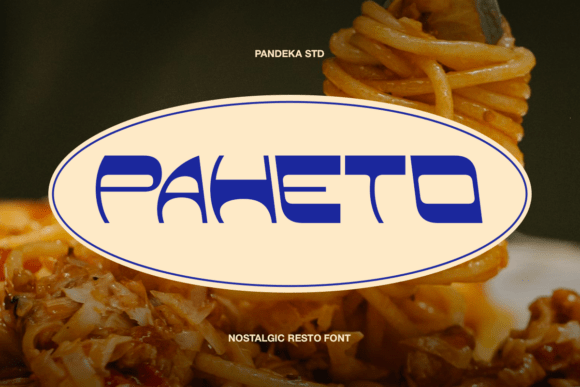
Paheto Font for Editorial Design
Paheto is a nostalgic restaurant display font inspired by classic Italian eateries, vintage menus, and retro food packaging. With its bold geometric shapes, rounded corners, and slightly futuristic-retro aesthetic, Paheto offers a unique visual identity that can elevate editorial design across multiple platforms.
Paheto for Magazine Covers and Article Headlines
Paheto is ideal for magazine covers and article headlines where strong visual impact is essential. Its bold structure ensures it stands out in print or digital formats, making it perfect for lifestyle publications, food blogs, or travel magazines. When used as a headline, Paheto adds a sense of authenticity and charm that resonates with readers looking for a vintage-inspired aesthetic.
- Use Paheto for cover titles to create an immediate visual connection with your audience.
- Pair Paheto with a clean sans serif font for body text to balance readability and style.
- Apply Paheto to pull quotes or section headings to guide the reader through content with clarity and flair.
Paheto for Ebook Titles and Digital Publications
Paheto is a powerful tool for ebook titles and digital publications where branding and visual consistency matter. Whether you're creating a recipe ebook, a wellness guide, or a creative writing anthology, Paheto helps establish a cohesive brand identity. Its retro-modern look makes it especially appealing for niche content focused on food, design, or lifestyle themes.
- Use Paheto for ebook titles to make them visually distinct and memorable.
- Apply Paheto to chapter openers or section headers to maintain a consistent editorial tone.
- Consider Paheto for lead magnets or downloadable guides to reinforce brand recognition.
Paheto for Newsletter Graphics and Social Media Posts
Paheto is a versatile choice for newsletter graphics and social media posts that require eye-catching typography. Its geometric form and rounded edges make it highly legible on screens, while its nostalgic character adds personality to visual content. Whether you're designing a weekly newsletter or crafting Instagram posts, Paheto brings a touch of retro elegance to your design work.
- Use Paheto for newsletter subject lines or header images to grab attention.
- Apply Paheto to social media captions or graphic overlays for a cohesive visual theme.
- Combine Paheto with subtle background textures or color gradients for a layered, professional look.
Paheto for Quote Graphics and Visual Storytelling
Paheto excels in quote graphics and visual storytelling where emotional resonance is key. Its rounded shapes and bold strokes evoke a sense of warmth and nostalgia, making it ideal for motivational quotes, food-related sayings, or cultural references. When paired with imagery or illustrations, Paheto enhances the narrative quality of your content.
- Use Paheto for quote cards or printable affirmations to add a stylish touch.
- Apply Paheto to infographics or data visualizations for a more engaging presentation.
- Experiment with Paheto in combination with hand-drawn elements for a personalized feel.
Paheto for Branding and Publication Identity
Paheto is a valuable asset for branding and publication identity, offering a distinctive typeface that can set your content apart. From logo design to editorial layouts, Paheto provides a strong visual foundation that aligns with themes of tradition, creativity, and modernity. Its adaptability makes it suitable for both digital and print projects, ensuring consistency across all mediums.
- Use Paheto for your publication's logo or masthead to create a recognizable brand presence.
- Apply Paheto to website headers or navigation menus for a unified design language.
- Integrate Paheto into your marketing materials to reinforce brand messaging and visual appeal.
Paheto for Printables and Creative Workbooks
Paheto is well-suited for printables and creative workbooks where visual appeal and readability are equally important. Whether you're designing a printable planner, a wedding guide, or a coaching workbook, Paheto adds a polished and professional finish. Its clean lines and structured form ensure that it remains legible even in small sizes or when printed on different paper types.
- Use Paheto for printable worksheets or activity pages to maintain a cohesive layout.
- Apply Paheto to checklists, schedules, or daily planners for a stylish yet functional design.
- Pair Paheto with a serif font for body text to enhance readability in longer documents.
Paheto for Packaging Design and Visual Branding
Paheto is an excellent choice for packaging design and visual branding, particularly for businesses in the food, beverage, or artisanal sectors. Its retro-inspired look complements traditional packaging styles while adding a modern twist. Paheto can be used on product labels, banners, or promotional materials to create a memorable and cohesive brand image.
- Use Paheto for website headers or hero sections to create a striking first impression.
- Apply Paheto to navigation menus or CTA buttons for increased visibility and usability.
- Ensure Paheto is compatible with your website’s responsive design framework for optimal performance.